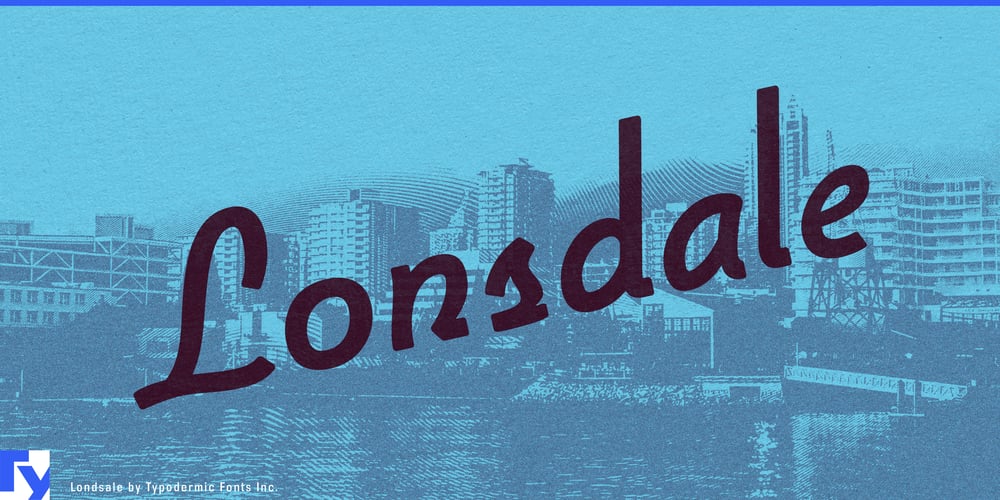
Lonsdale Font Family was designed by Ray Larabie and published by Typodermic. Lonsdale contains 1 styles and family package options. Step into a world of refined sophistication with Lonsdale, a disconnected script typeface that seamlessly blends timeless elegance with contemporary flair. This exceptional font family draws inspiration from Emil Hirt’s iconic 1964 Parkway Script, reimagining classic script elements through a modern lens to create a truly distinctive typographic voice.Lonsdale’s most captivating feature is its masterfully crafted curved corners, which lend each character a soft, approachable quality. These gentle contours create a visual rhythm that flows effortlessly across the page, inviting the eye to linger and savor every detail. The result is a typeface that exudes both warmth and precision—a rare combination that sets Lonsdale apart in the world of script fonts. But Lonsdale is more than just a pretty face. Its technical prowess shines through in its carefully balanced letterforms and thoughtful spacing, ensuring optimal legibility without sacrificing an ounce of style. Whether you’re crafting an elegant logo, designing high-end packaging, or creating editorial layouts that demand attention, Lonsdale rises to the occasion with grace and versatility.This typeface speaks the language of sophistication fluently across borders. Lonsdale’s extensive character set supports a wide array of Latin-based European writing systems, from the rolling hills of the Basque Country to the bustling streets of Budapest. Whether you’re composing in French, Polish, or Portuguese, Lonsdale maintains its poise and elegance, ensuring your message resonates with audiences around the globe. Elevate your designs with Lonsdale’s unique blend of serenity and style. Its disconnected script nature allows for creative flexibility, making it equally at home in both traditional and avant-garde contexts. From wedding invitations that whisper of romance to bold brand identities that command attention, Lonsdale adapts effortlessly to your vision.Don’t settle for ordinary when extraordinary is within reach. Add Lonsdale to your typographic arsenal today and watch as it transforms your designs from merely beautiful to truly unforgettable.